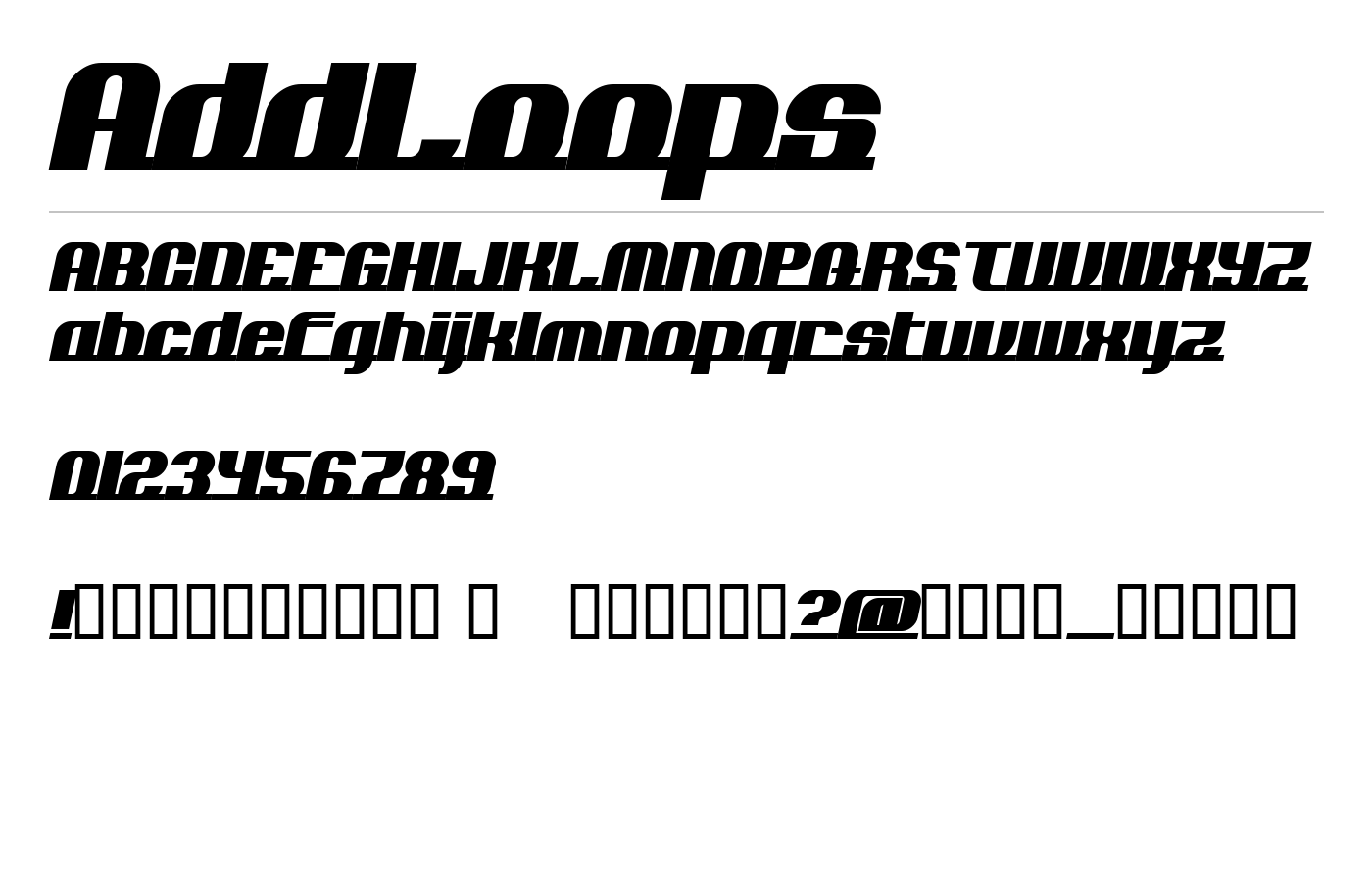
AddLoops is a bold, condensed sans serif font with an italic slant that gives it a dynamic, forward-moving energy. Its heavy weight, sharp angles, and tight spacing lend a sporty, modern vibe, making it ideal for striking headlines, logos, and branding that demand attention and a sense of speed or action. This font works well for contemporary, high-impact designs where strong presence and style are key.
AddLoops Font